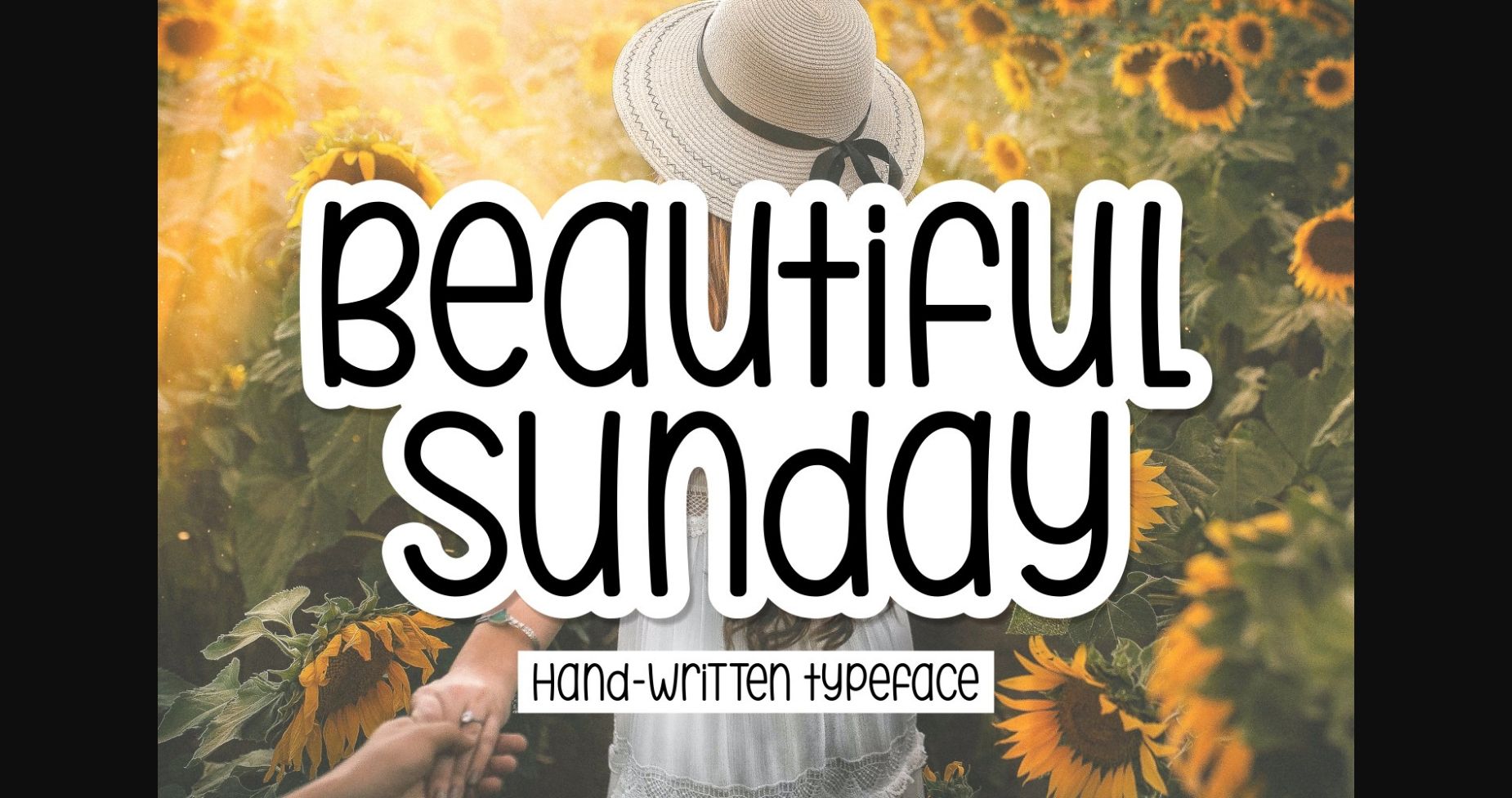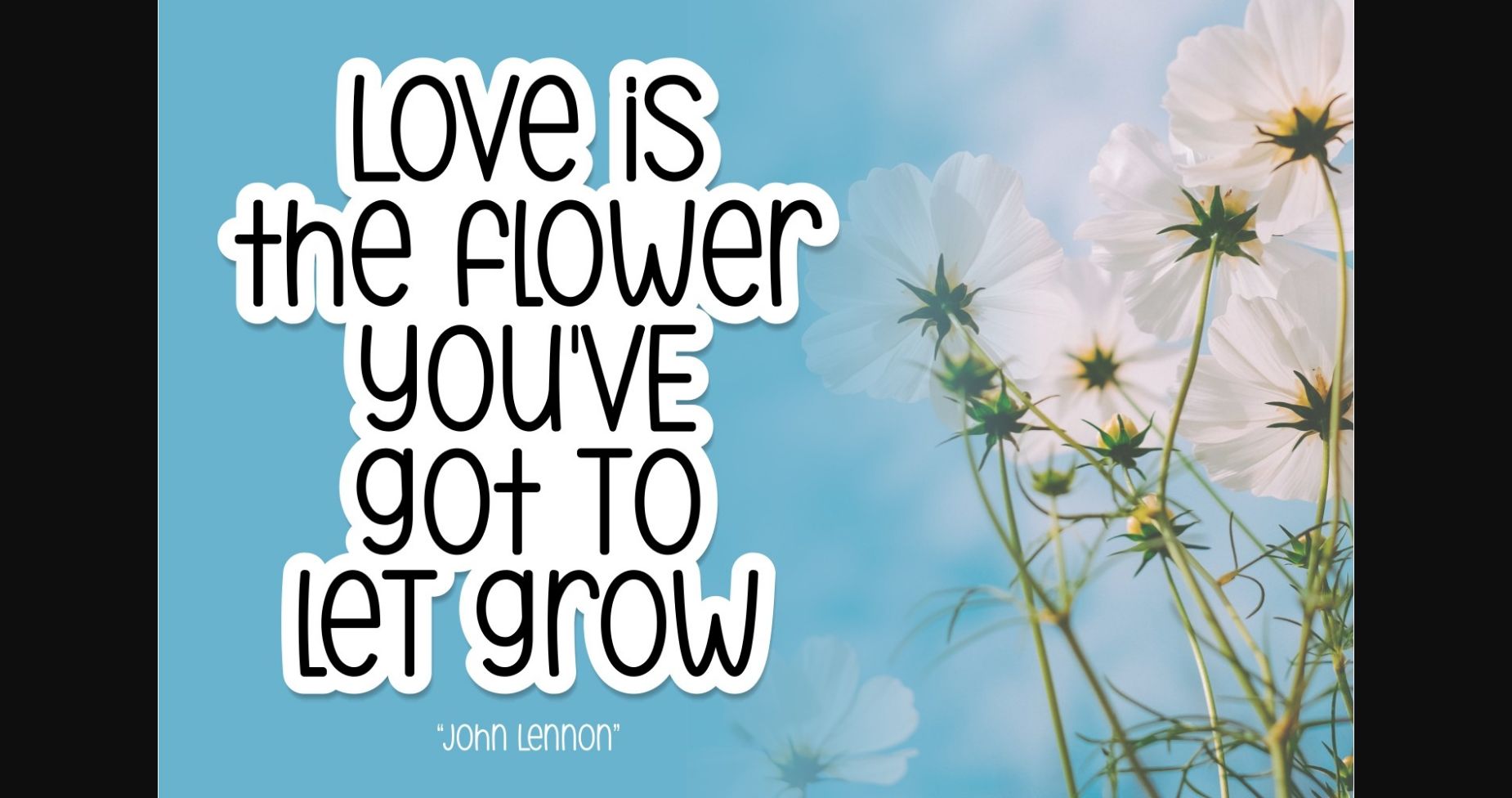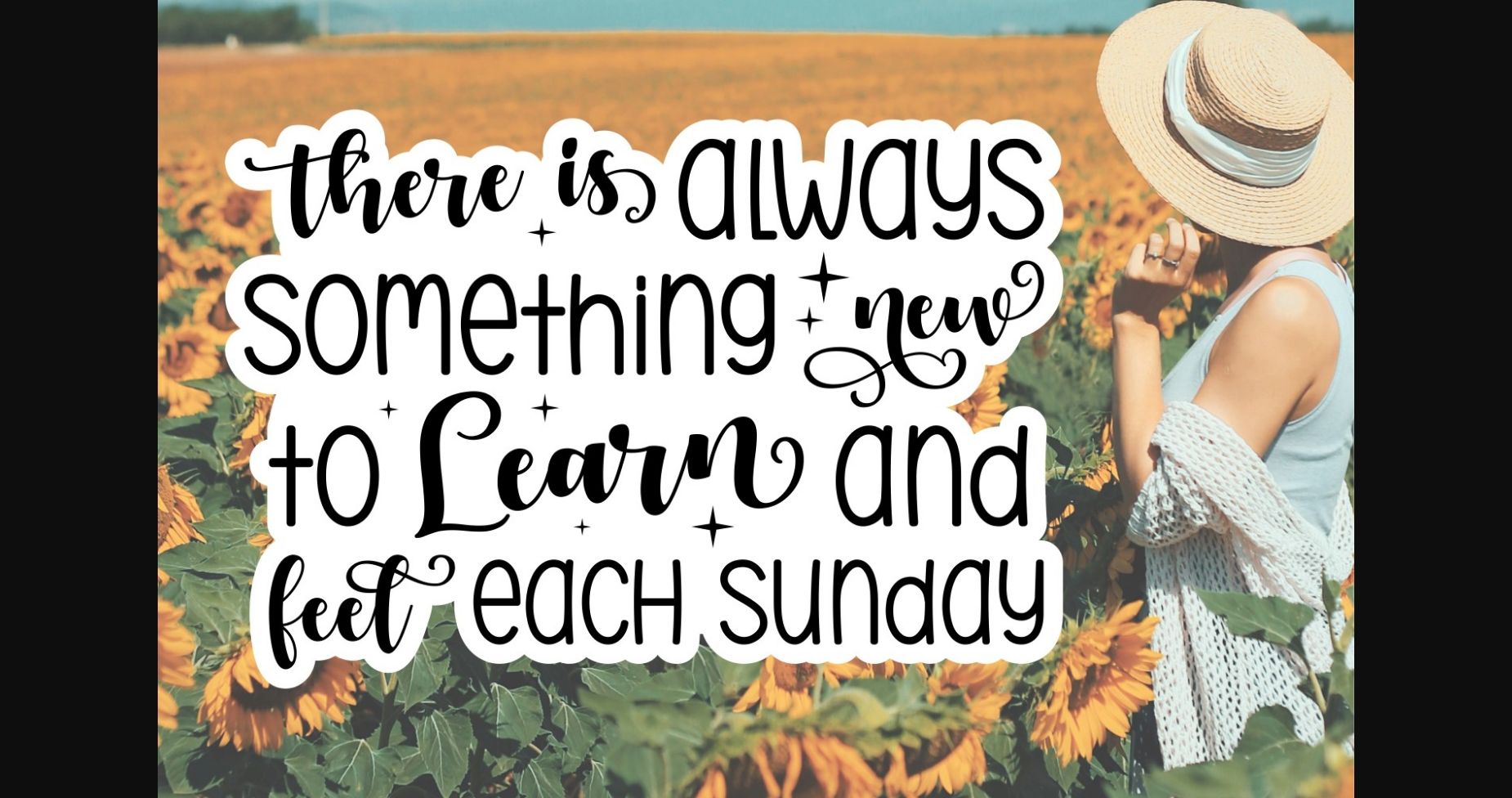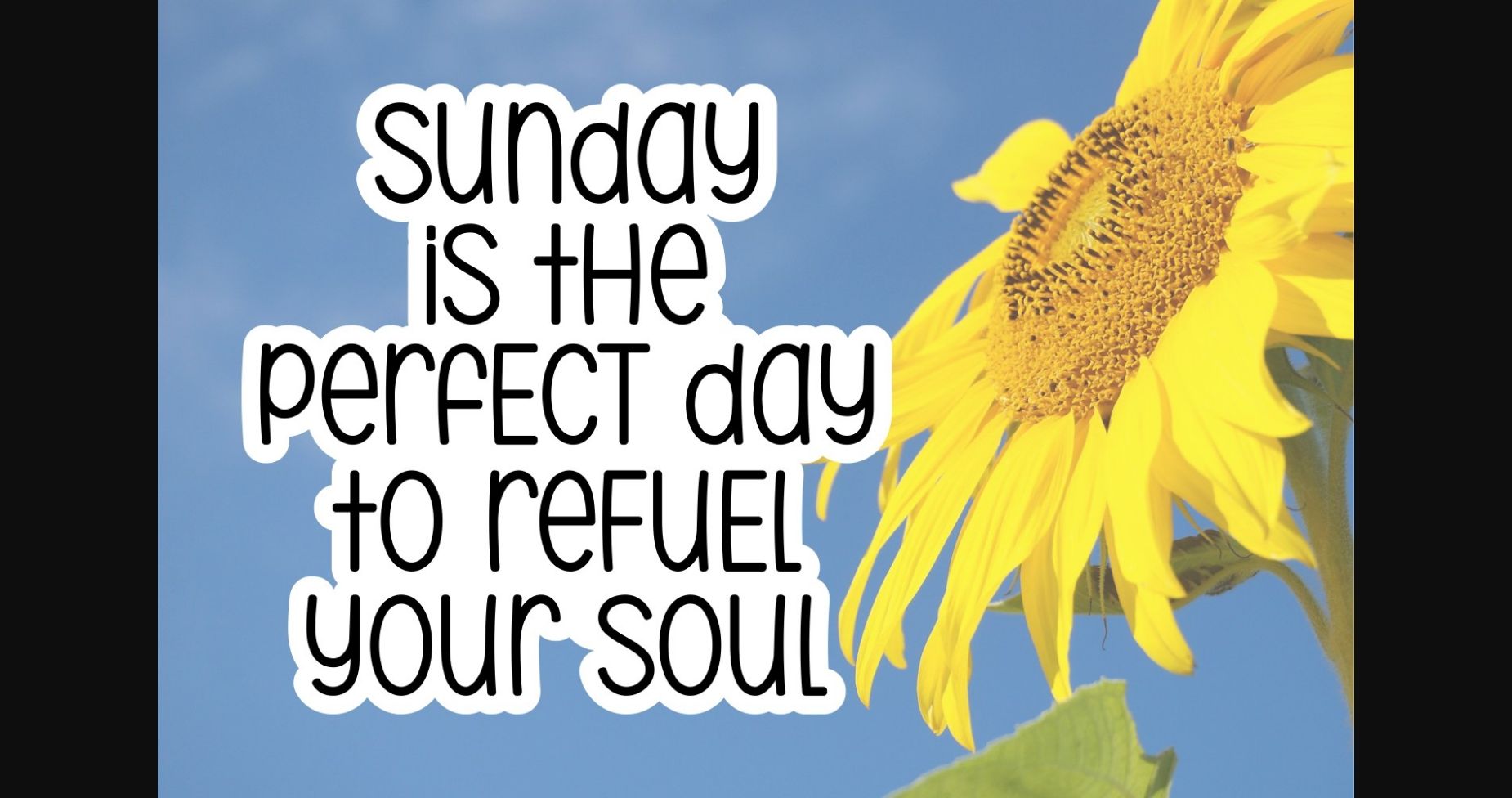
Beautiful Sunday is a charming sans serif font. Creative, well-rounded and flowing, this font can easily become your favorite. It can be used for books, magazines, social media posts, invitations, and so much more!